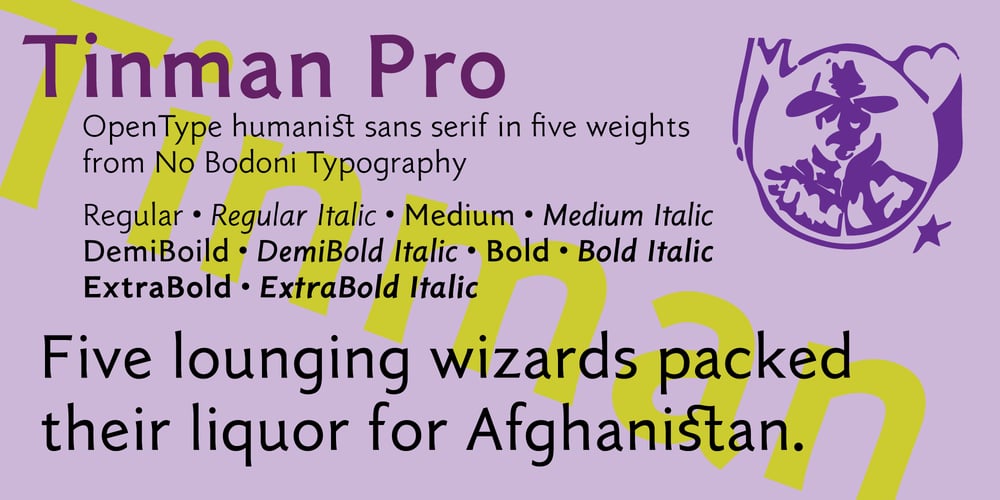
Tinman Pro
Tinman Pro font
Tinman Pro Font Family was designed by George E. Thompson and published by No Bodoni. Tinman Pro contains 10 styles and family package options. TinmanPro is a mildly stressed humanist sans serif type based on the University of California Oldstyle type designed by Frederick Goudy. The design captures the warmth and friendly character of Goudy�s original in a monotone sans. Broad Latin support along with small caps, fraction support and other typographic niceties are included in the ten font family. Weight range includes Regular, Medium, DemiBold, Bold and ExtraBold with matching italics for each.